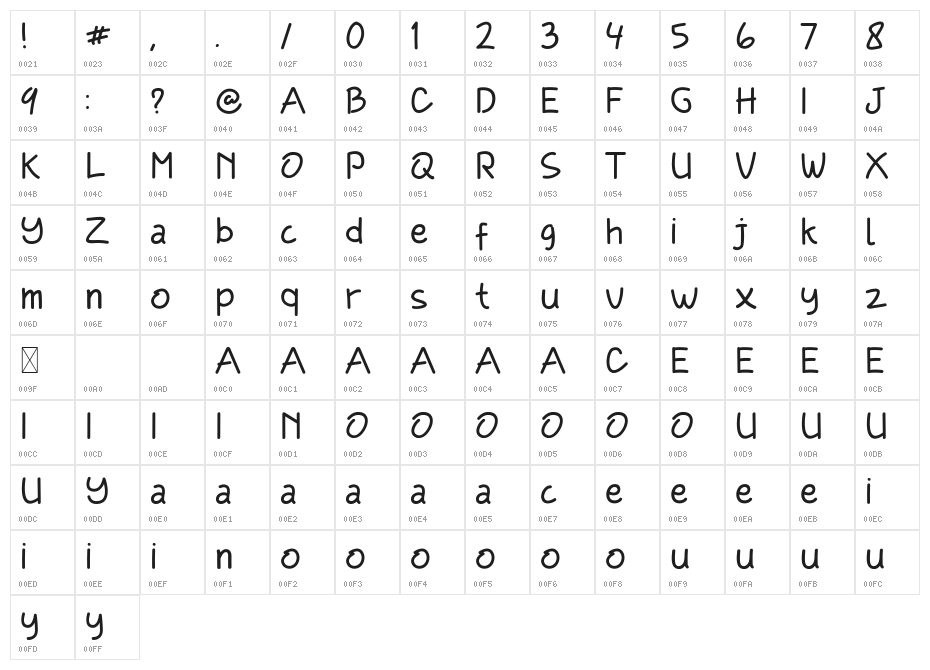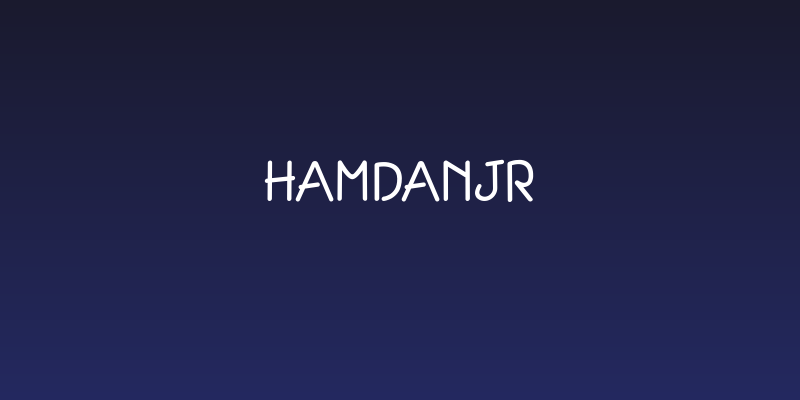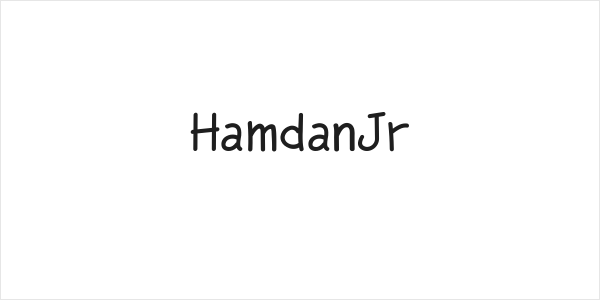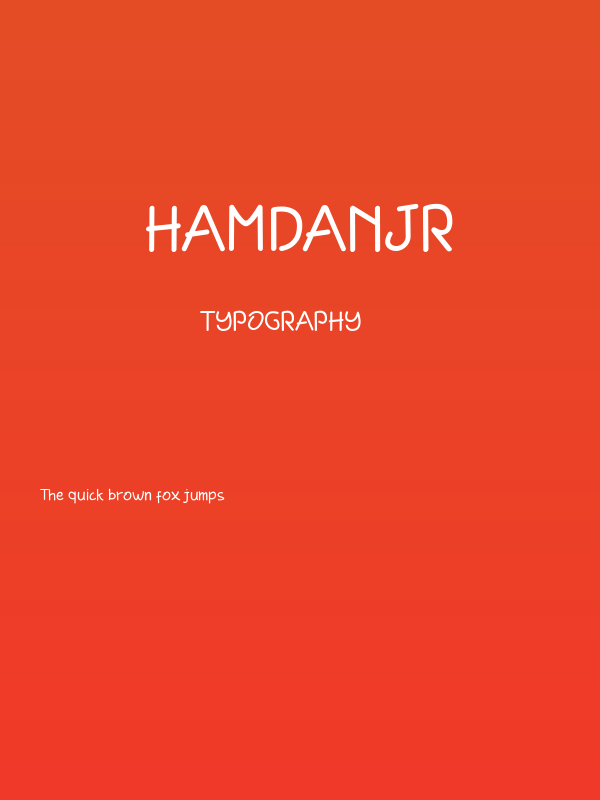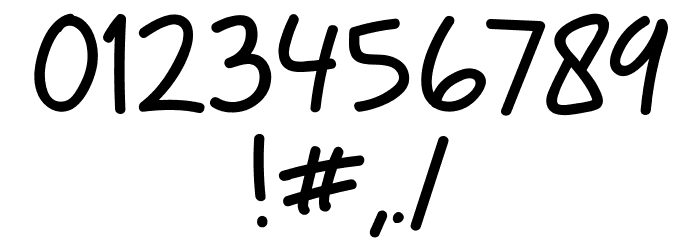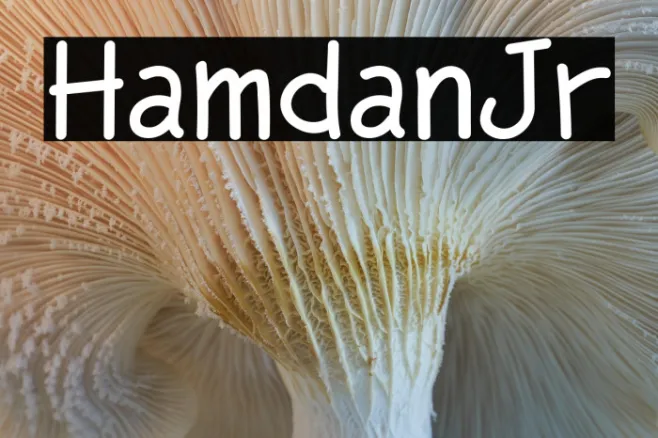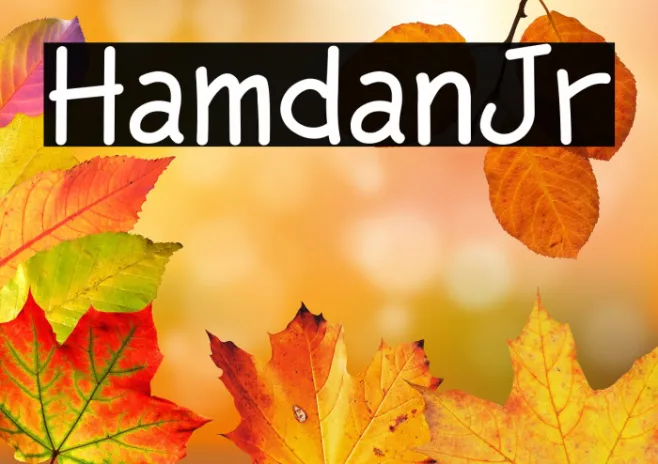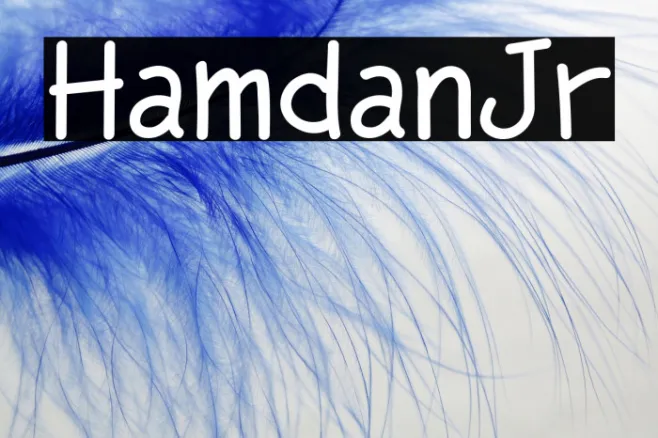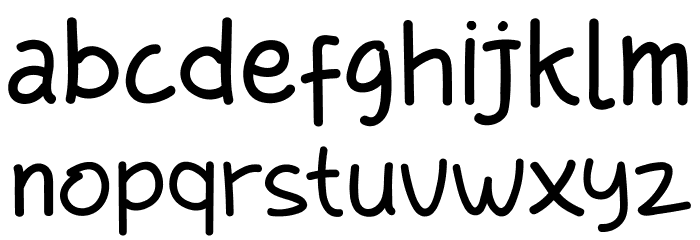
HamdanJr Font
HamdanJr Description
This font features a playful and casual handwritten style, characterized by smooth, rounded edges and a consistent stroke width. The letters are slightly tilted, adding a dynamic and informal feel. The uppercase letters are bold and prominent, while the lowercase letters maintain a friendly and approachable appearance. The numerals are clear and easy to read, matching the overall style of the alphabet. Special characters are included, maintaining the same playful aesthetic. This font is suitable for projects that require a personal touch, such as invitations, greeting cards, or children's books.
| Use Case | Headlines, Informal text, Branding |
| Proposed Projects | Ideal for invitations, greeting cards, children's books, and informal branding. |